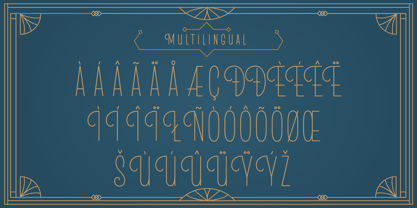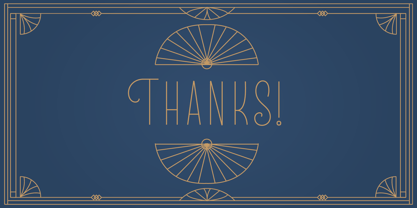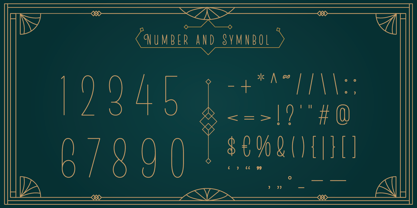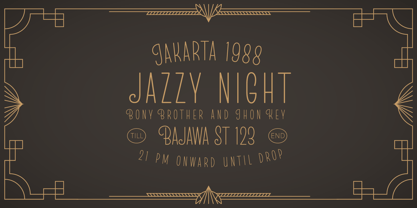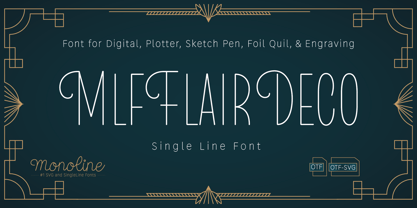
MLF Flair Deco Single Line
by MonolineFonts
The MLF Flair Deco Single Line Font Family was designed by Refialdi Dwi Putranto and published by MonolineFonts. MLF Flair Deco Single Line contains 3 styles and family package options.
MLF Flair Deco SingleLine effortlessly captures the elegance of the Art Deco era while offering the precision and versatility of modern technology. This sophisticated single-line font is ideal for a wide range of applications, including digital cutting, engraving, web design, and custom print projects. Whether you’re a professional designer or perhaps a crafting enthusiast, MLF Flair Deco SingleLine offers unparalleled style and performance.